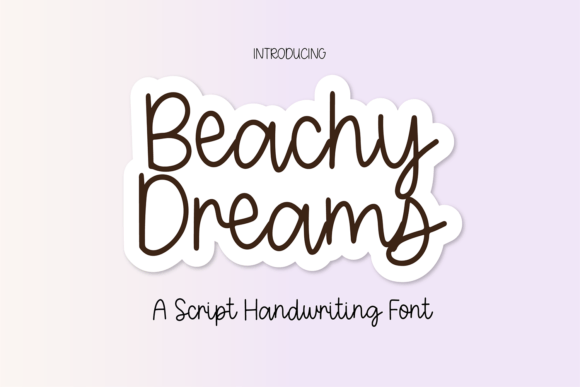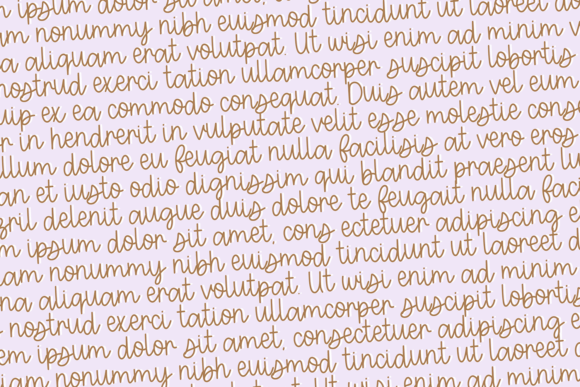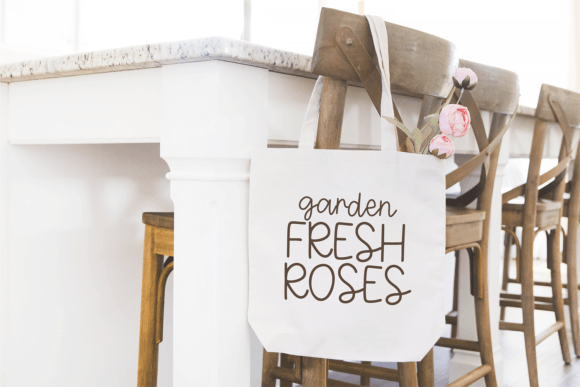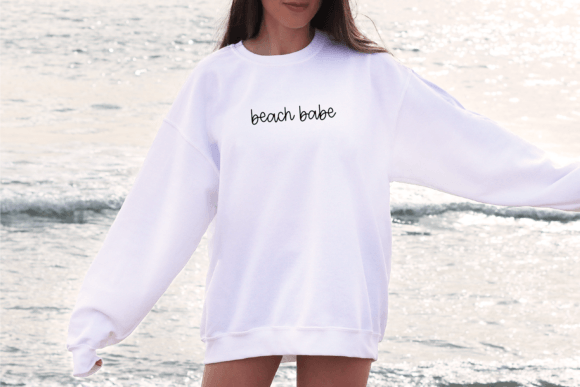
Beachy Dreams Font: Cute Script for Cricut & Social Media Design
About the Beachy Dreams Font
Get ready to be inspired by Beachy Dreams Font, a fresh and dynamic typeface for modern creators. “Beachy Dreams” cute script cursive handwriting font.
Beachy Dreams is a cute pen script handwriting font that is perfect for social media or goodnotes or digital planning. Use it for branding, crafts for decor, invitations, and more! This font includes upper and lowercase glyphs, numbers, basic punctuation marks.